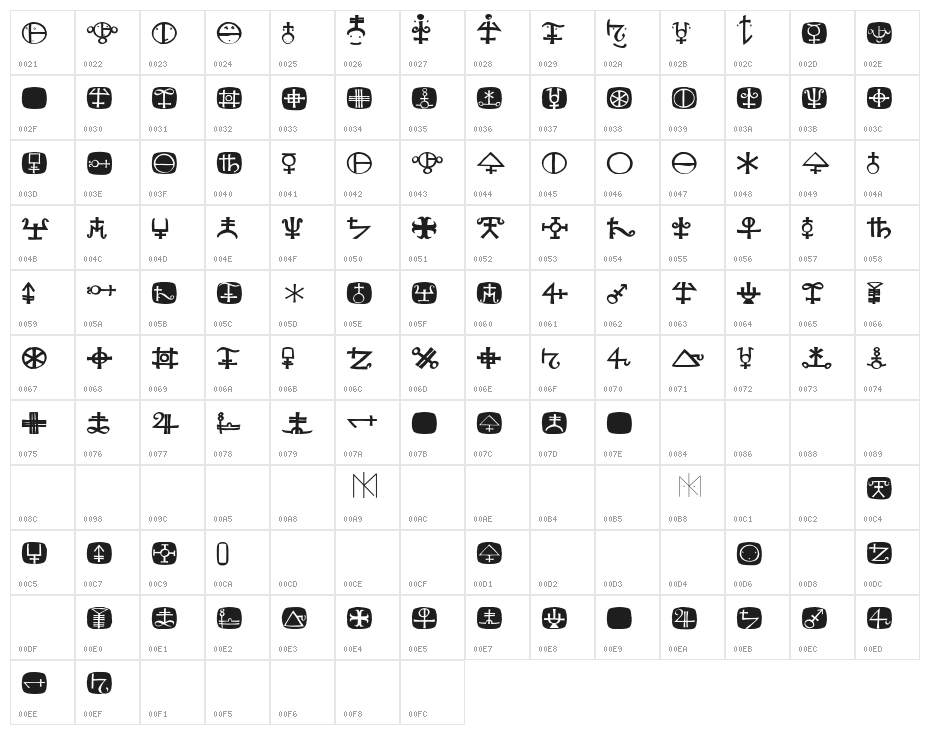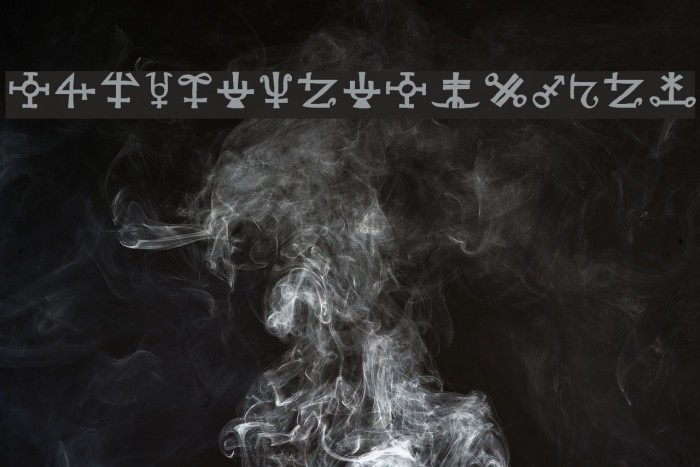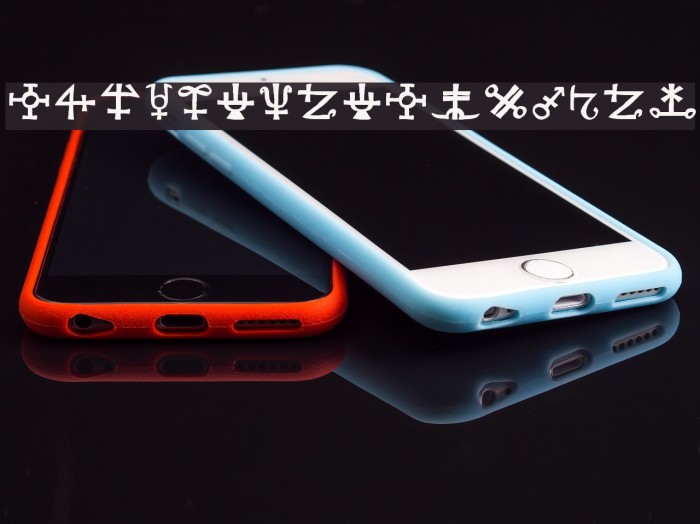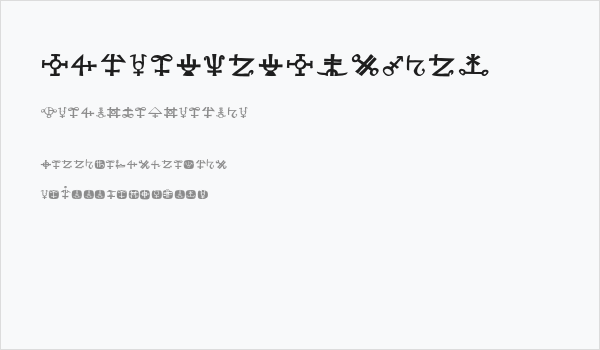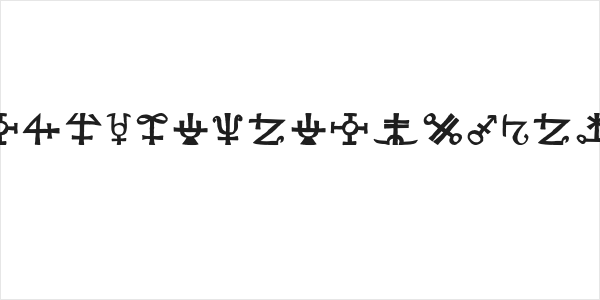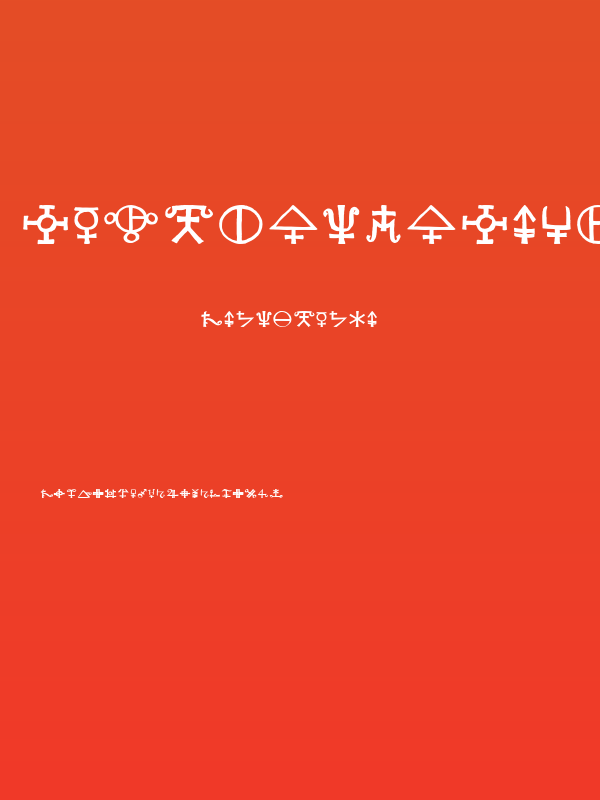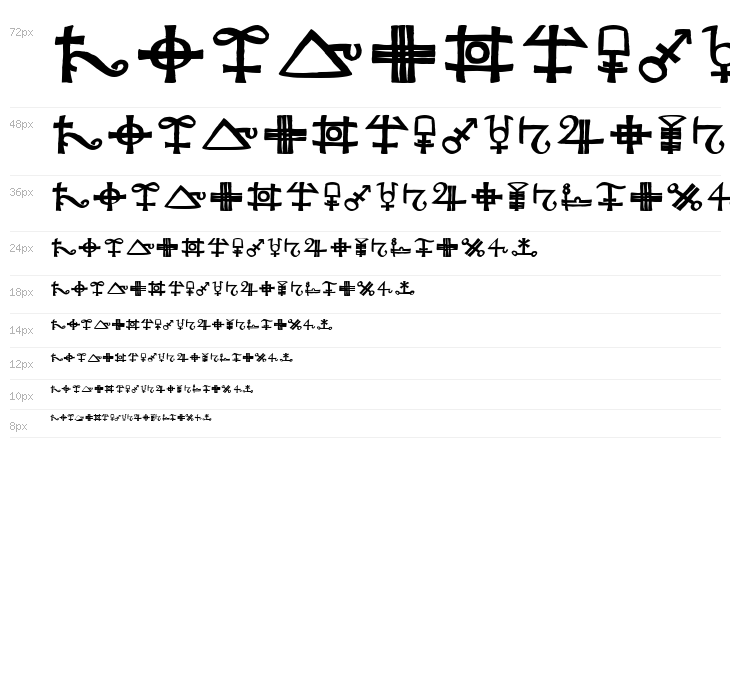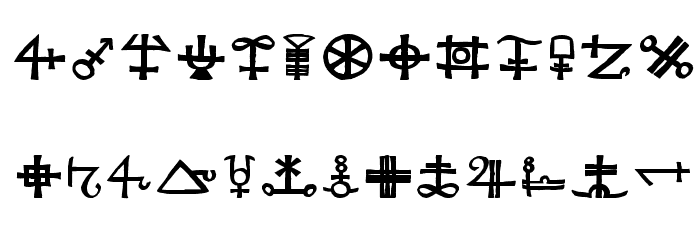
SacredOldSymbols Font
SacredOldSymbols Description
A highly decorative and symbolic typeface featuring intricate, abstract glyphs inspired by ancient or mystical symbols. Each character is unique, with complex line work, circles, and geometric shapes, evoking a sense of esoteric or ritualistic design.
| Overall Style | Decorative, Mystical, Esoteric |
| Use Case | Logos, Headlines, Posters, Themed artwork |
| Proposed Projects | Fantasy book covers, occult-themed posters, game titles, mystical branding, esoteric art projects. |